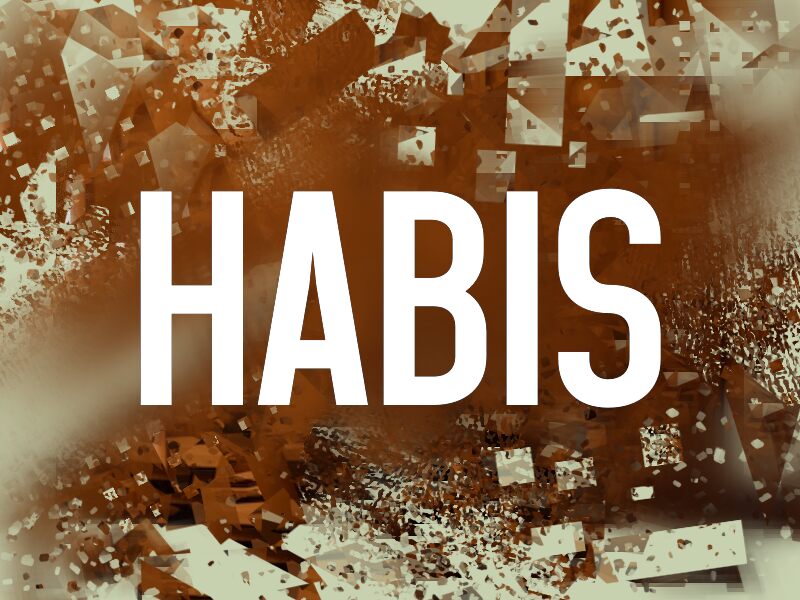
HABIS
Habis font is a contemporary sans serif typeface by wep. This collection of free narrowed letters offers something different with its clean and geometric outline free of unnecessary details and finishing touches. The minimalistic vibe and the condensed appearance allow designers to focus on their general concept without distractions.
This modern display-free font fits perfectly in magazine designs, packaging, business cards, printouts, branding applications, websites, UI/UX envelopes, portfolios, printed apparel patterns such as t-shirt prints. It can also be used in other digital projects such as video presentations or apps stage development mockups that require remarkable immersive texts with a twist!